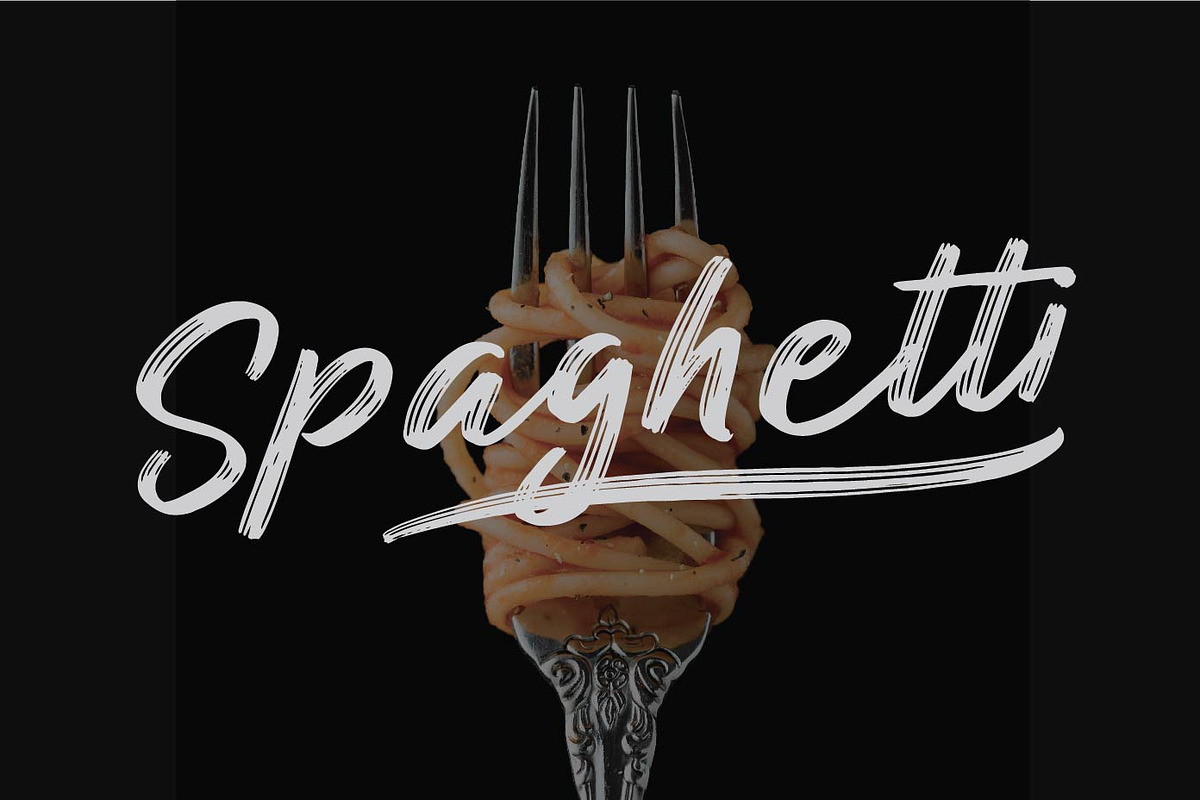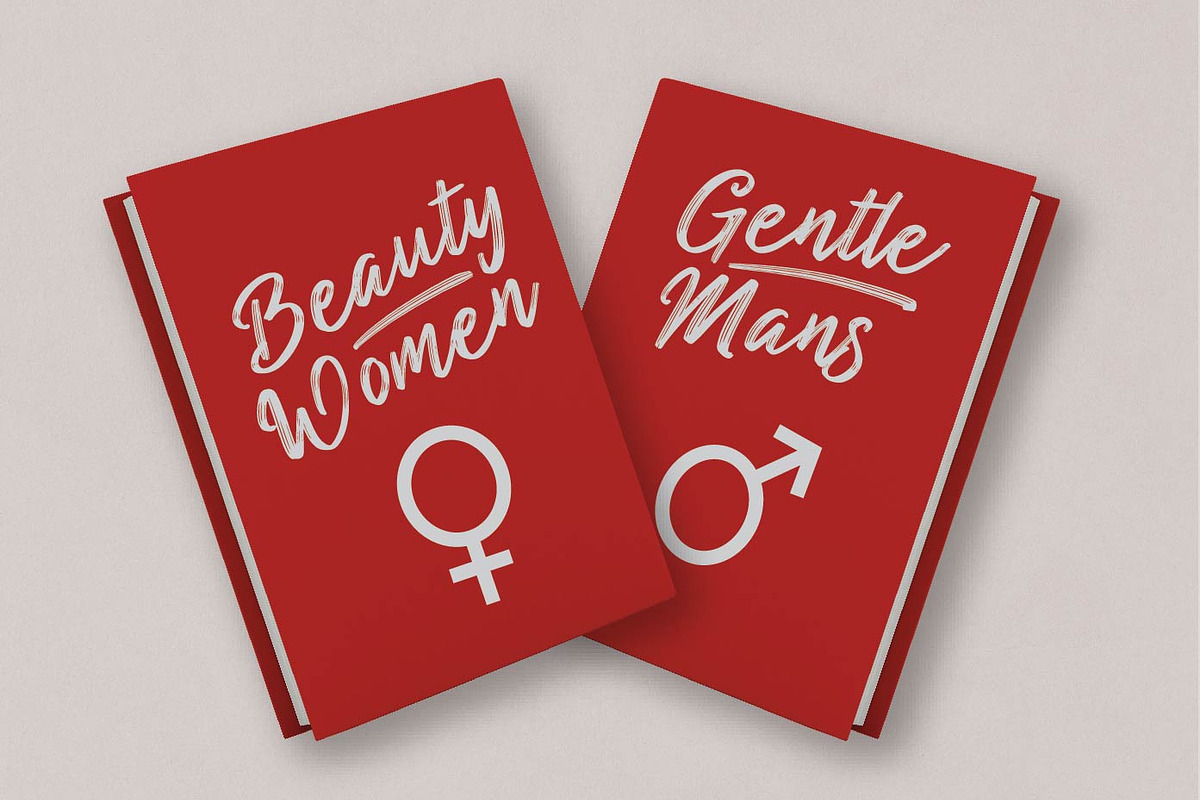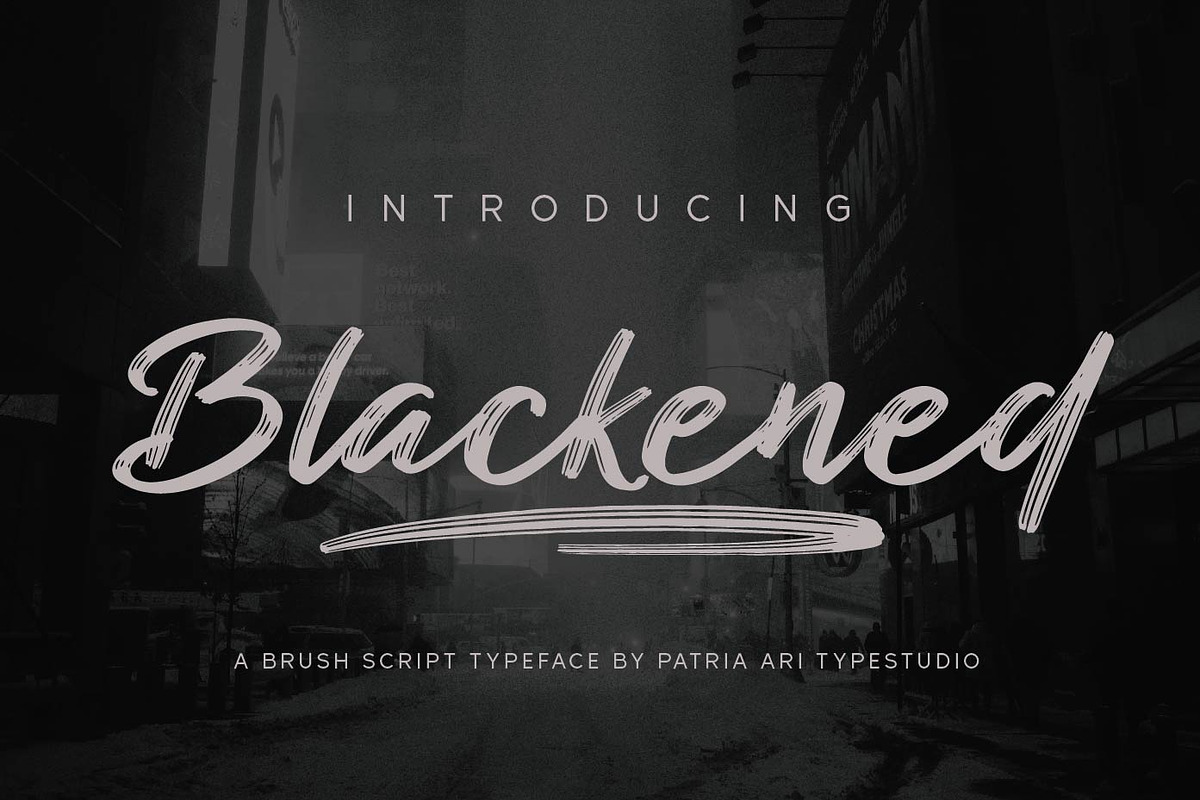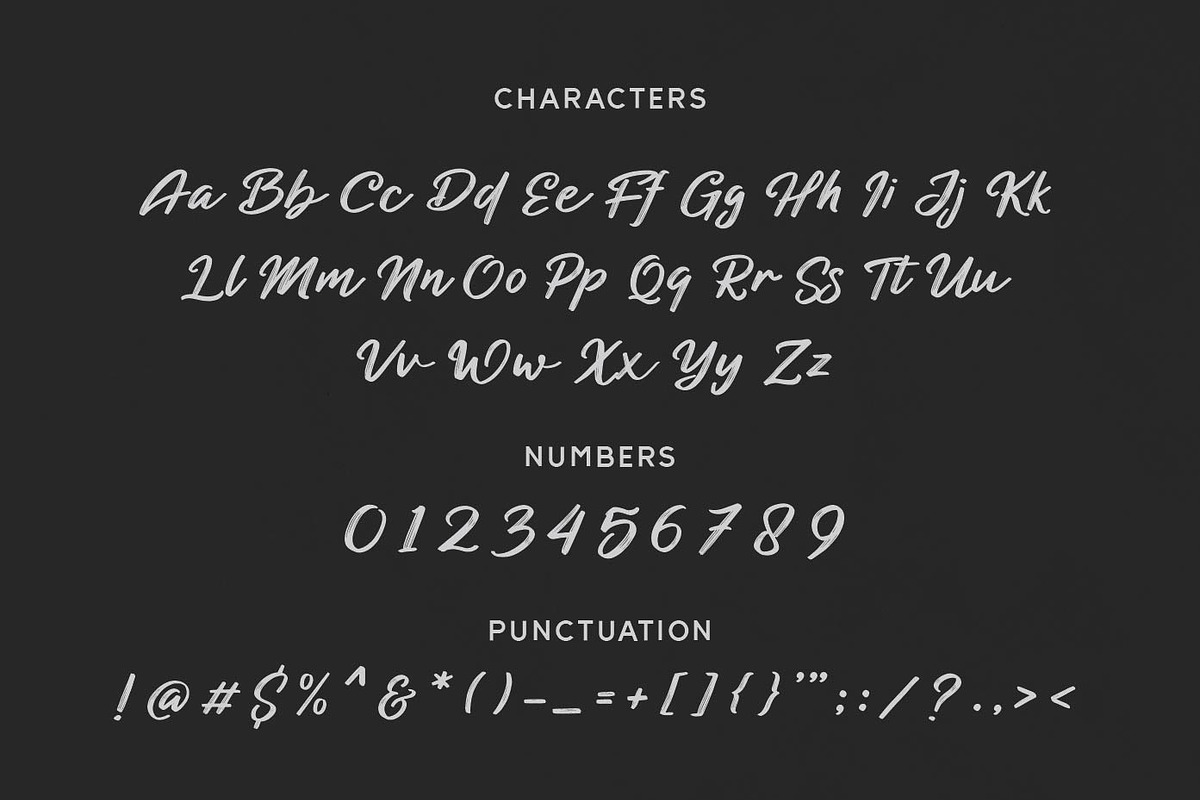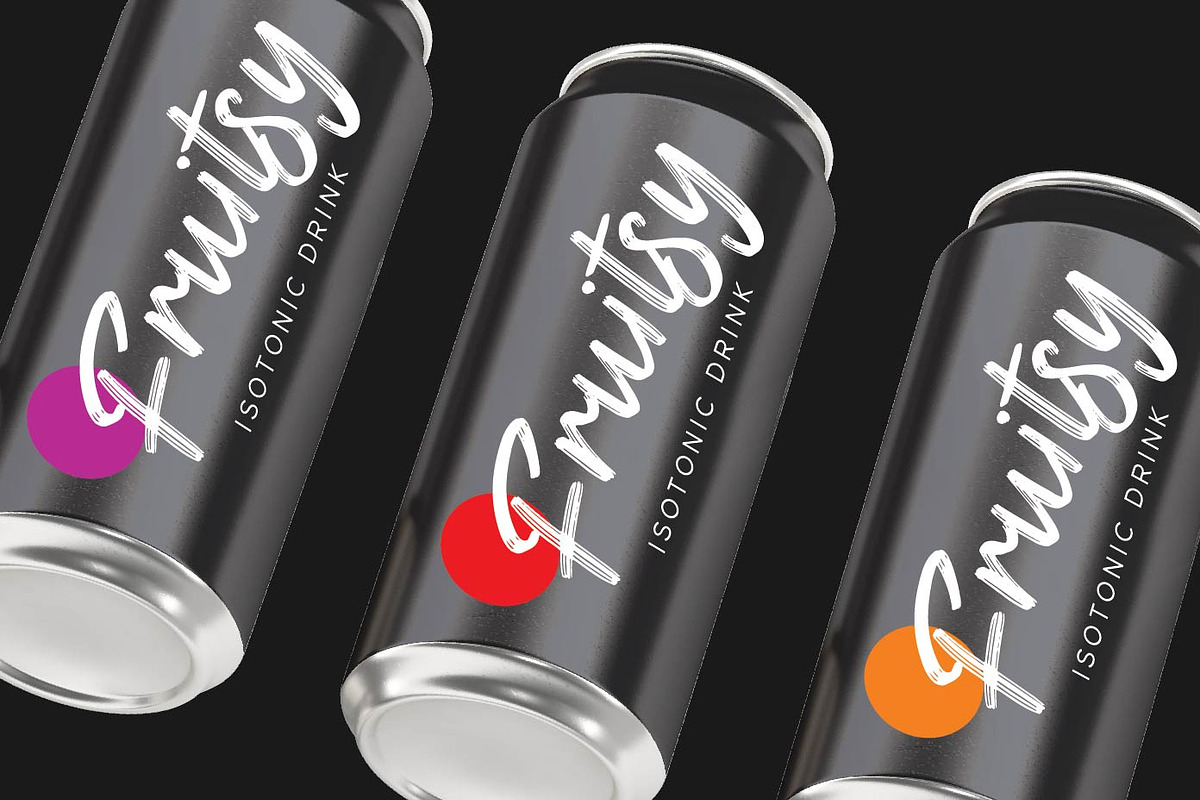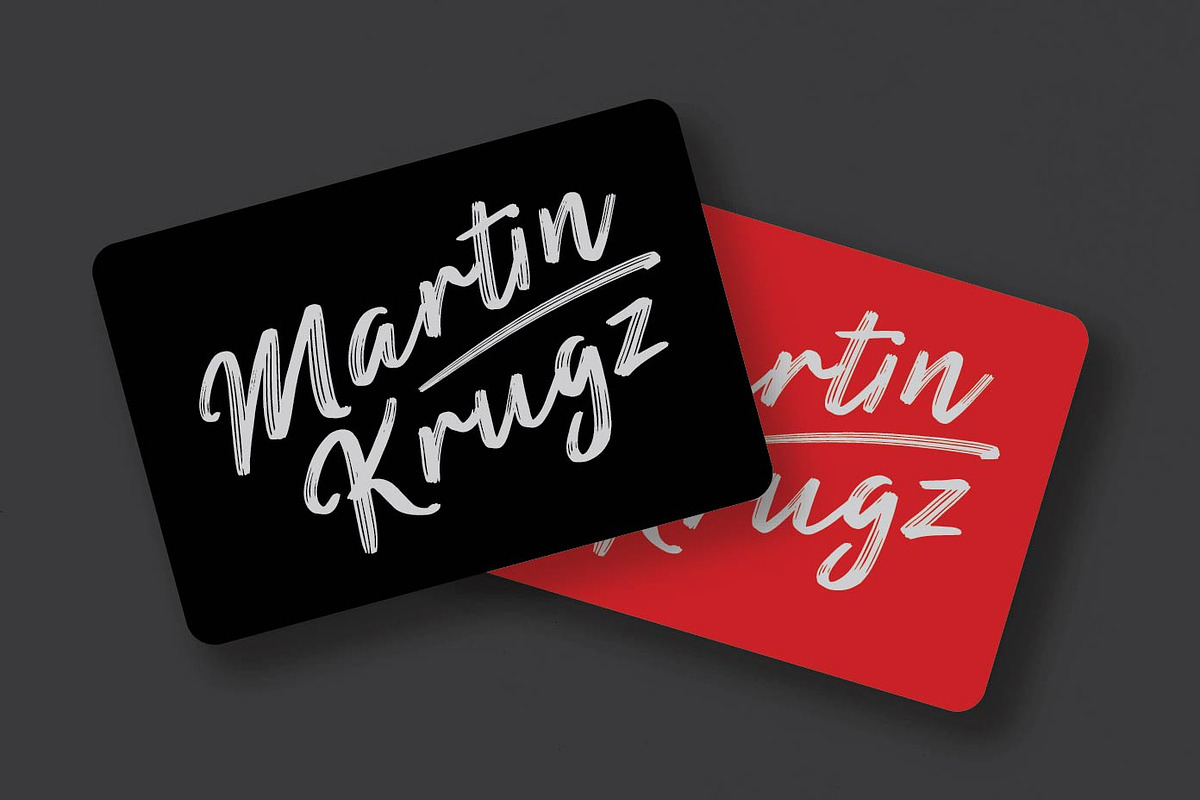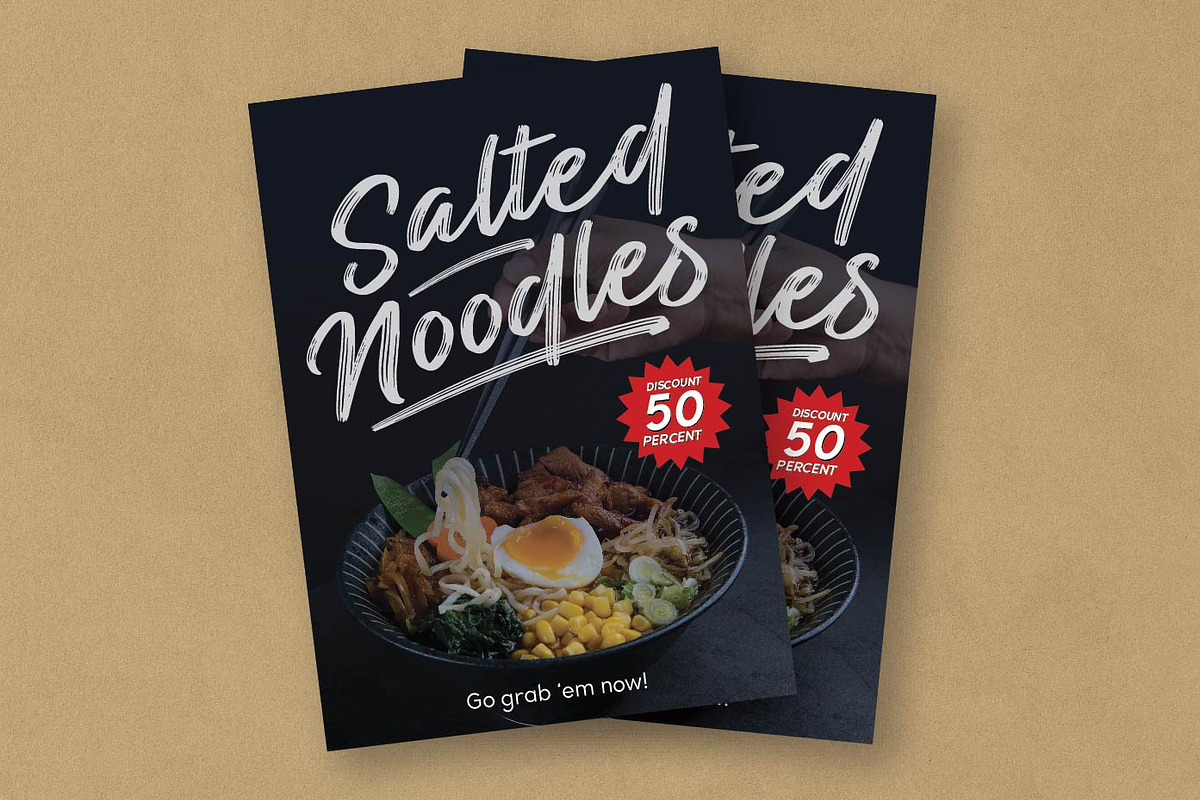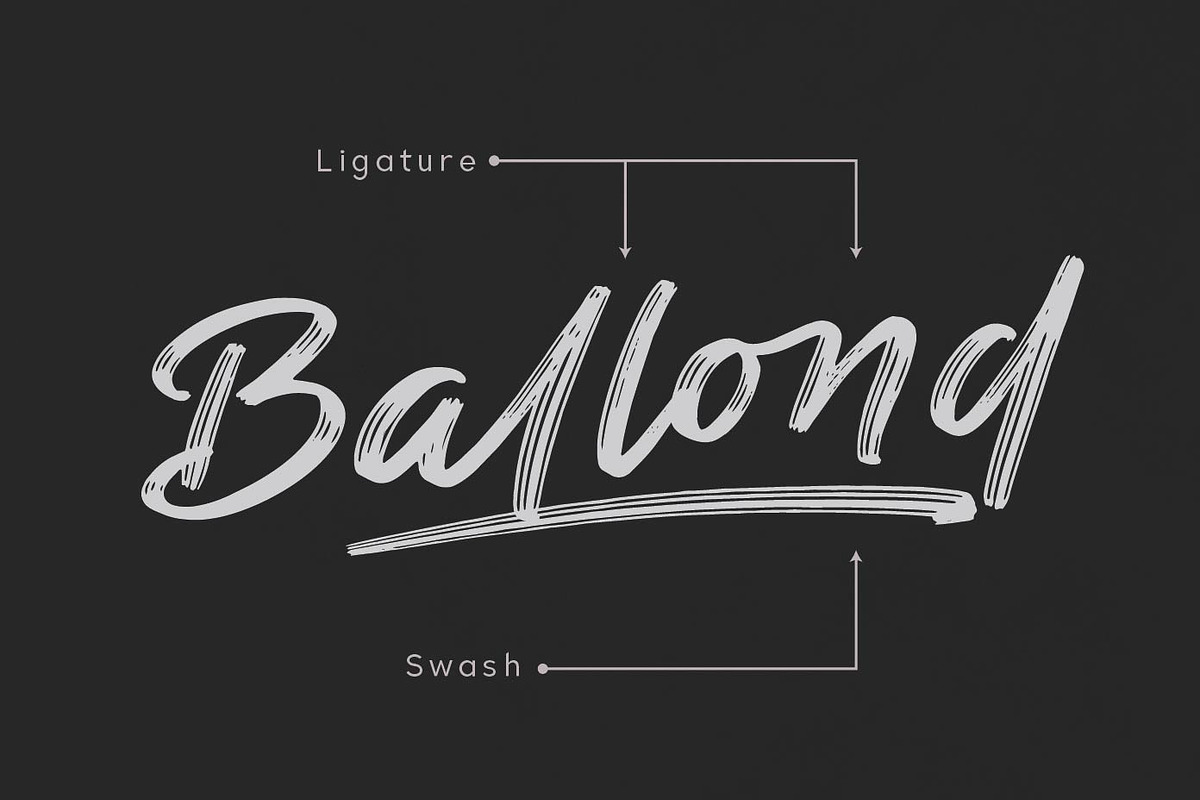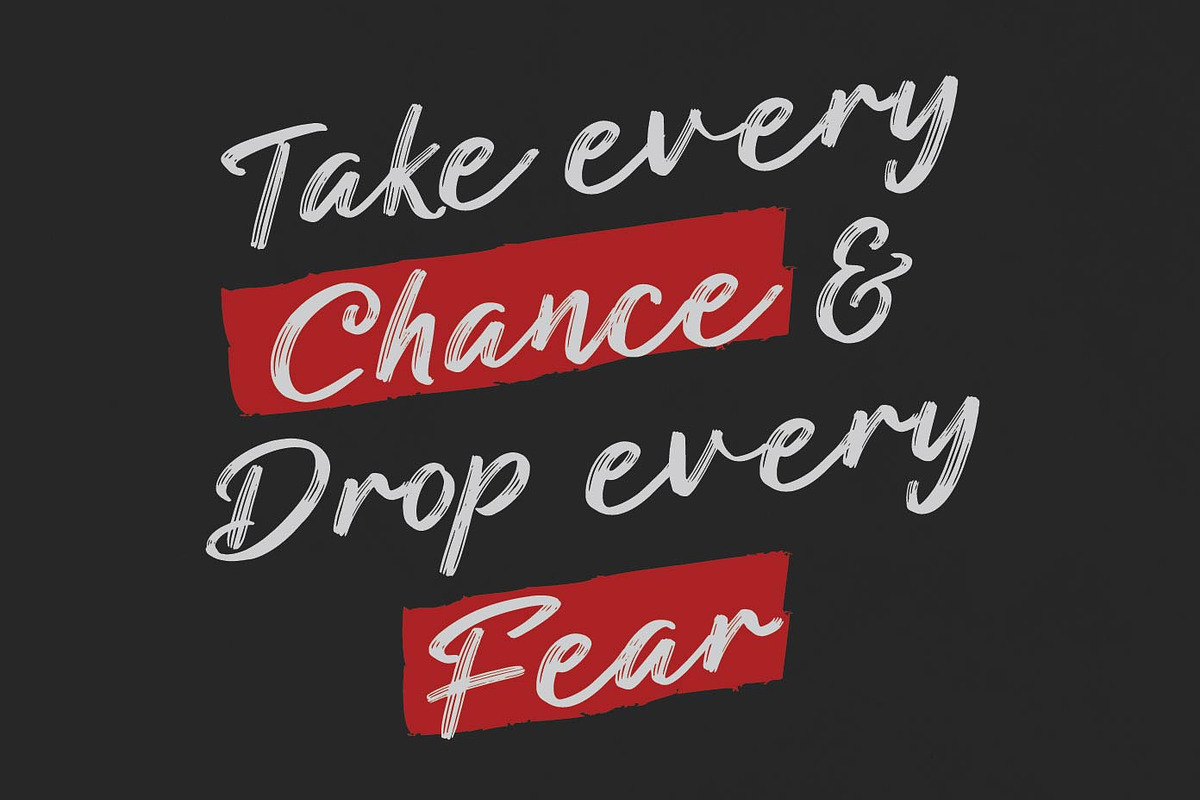
Blackened - Brush Script Typeface
Blackened is a brushscript typeface with multilingual accent and also swashes.
Fonts featured :
Uppercase, Lowercase, Numbers, Punctuation & symbols, Accented characters, Swashes